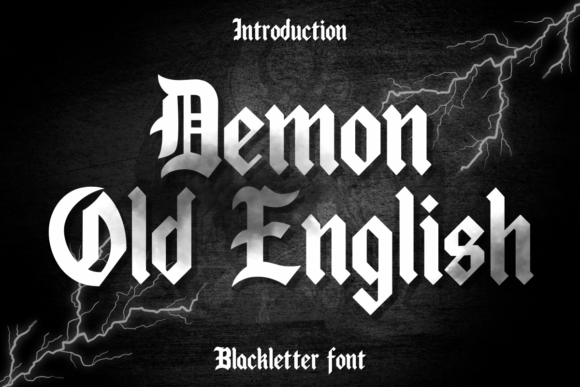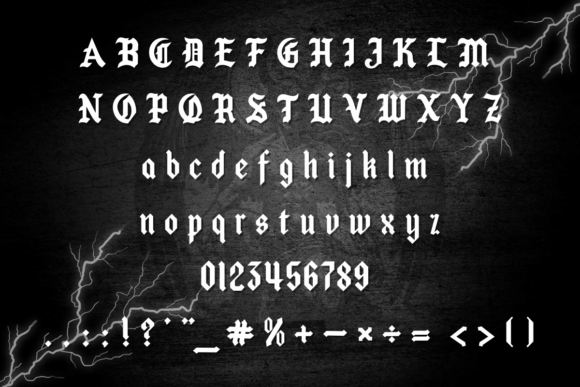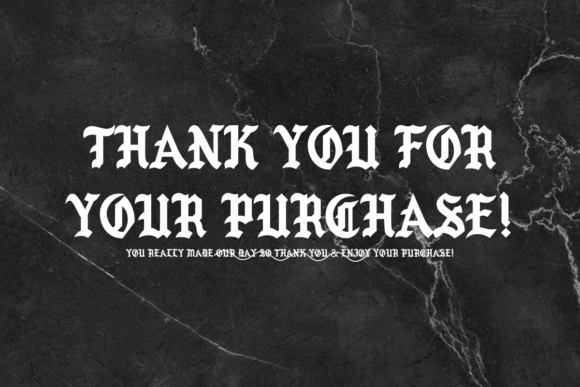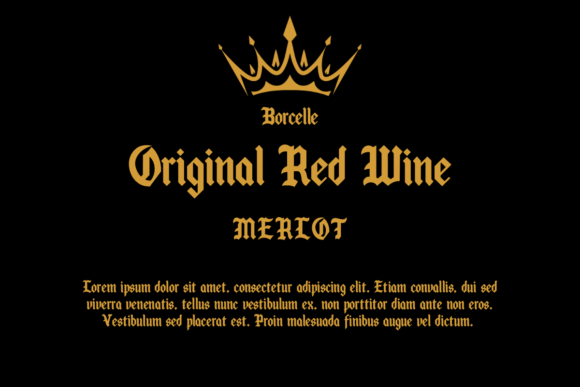
Demon Old English Font
About the Demon Old English Font
Discover the charm of Demon Old English Font. This font is a perfect blend of modern aesthetics and classic appeal. Demon Old English is a blackletter font. You can use it for taking notes, writing a diary or making greeting cards. However you can still use it for other designs such as banners content mugs cards shirts stationery social media posts and more!
Demon Old English’s bold, gothic character makes it ideal for headlines, short impactful statements, or branding projects requiring a strong, authoritative presence. It excels in applications like posters, logos, and packaging where a dramatic visual impact is desired. However, its intricate details and heavy weight make it unsuitable for body text or UI elements; readability suffers in smaller sizes or extended use.
For a balanced design, pair Demon Old English with a clean sans-serif like Montserrat or a more geometric font such as Futura. These pairings create contrast and visual hierarchy, allowing the blackletter to stand out while maintaining readability. Alternatively, a simple serif like Playfair Display could add a touch of classic elegance, tempering the font’s gothic edge.
The font’s overall personality is assertive and rebellious, making it a powerful choice for brands seeking to project strength and individuality. Avoid using it for projects requiring a delicate or friendly aesthetic.
Demon Old English Font Usage Examples
Demon Old English Font Example